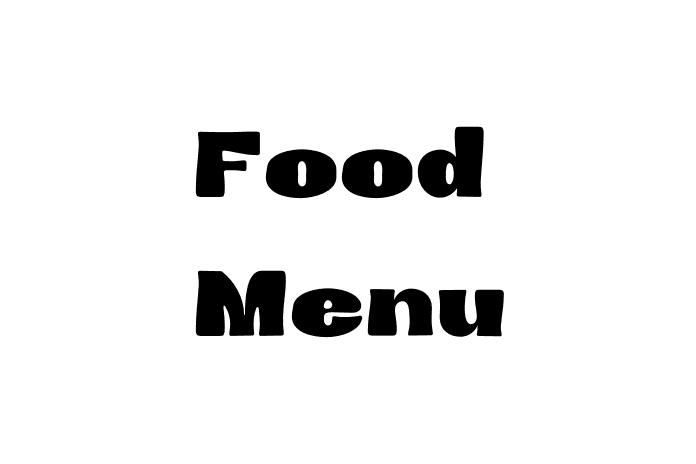
Barbie Mood Font
Barbie Mood is a cartoon font with fun and playful looks .this font suitable for an elegant & luxury logo, book or movie title design, fashion brand, magazine, clothes, lettering, quotes, and so much more.